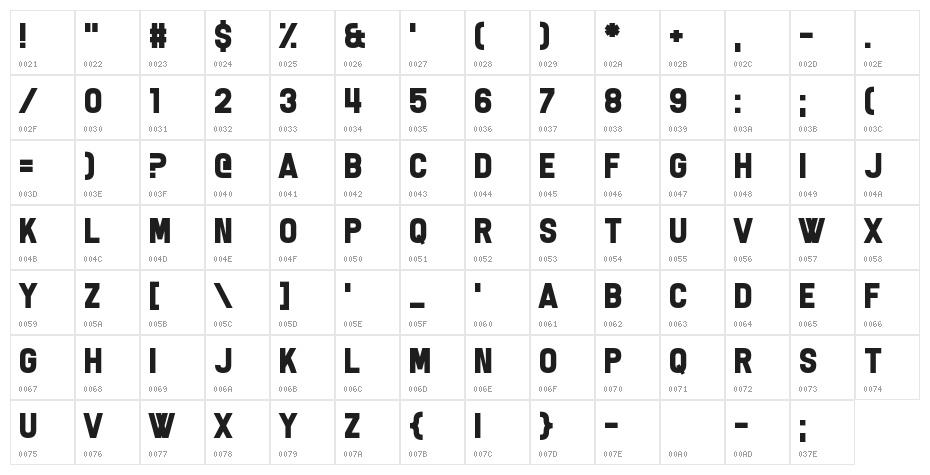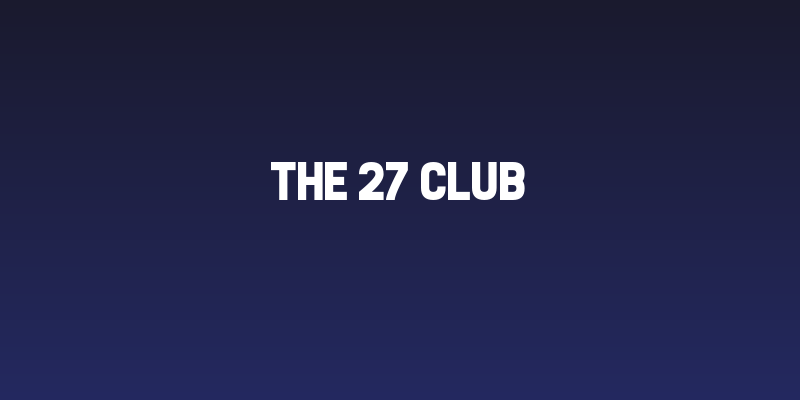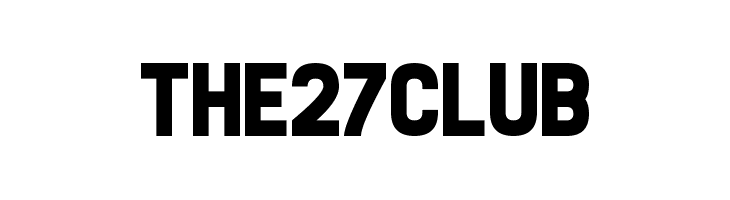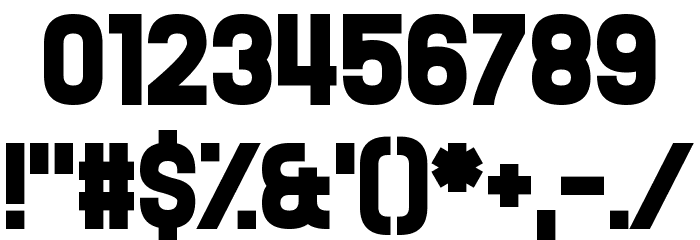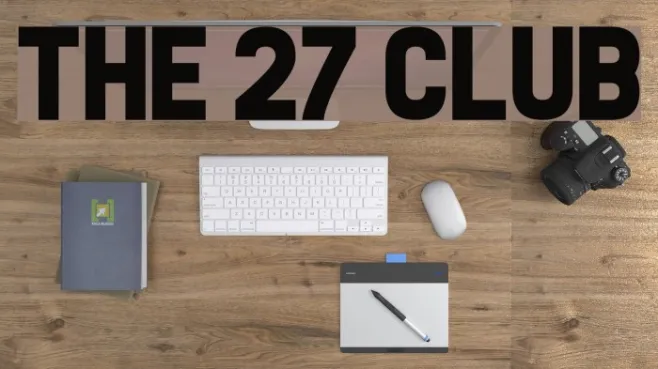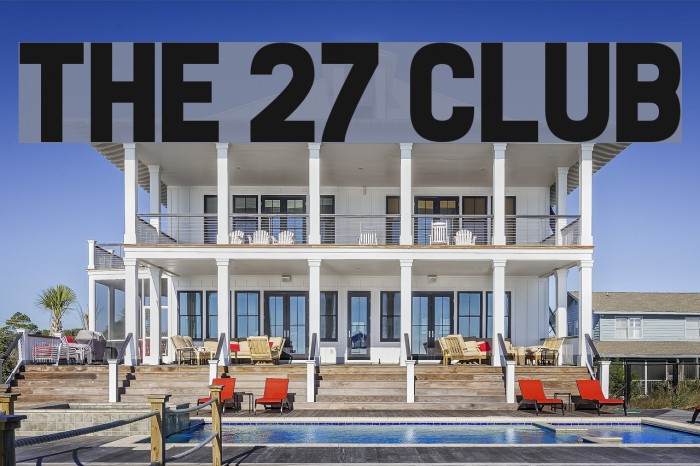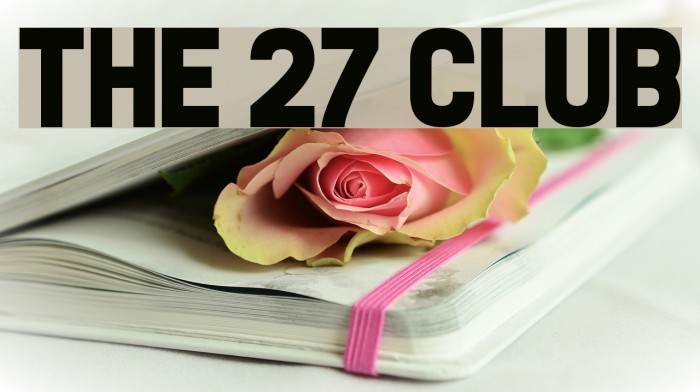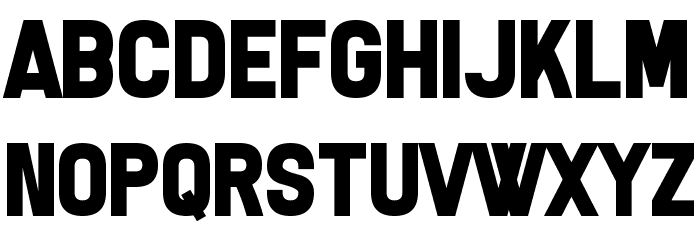
The 27 Club Font
The 27 Club Description
This font features bold, uppercase letters with a strong, impactful presence. The characters are designed with a uniform stroke width, giving them a robust and solid appearance. The font is highly legible, making it suitable for attention-grabbing headlines and titles. The numbers and special characters maintain the same bold style, ensuring consistency across all text elements. The overall design is modern and clean, with a slight industrial feel, making it versatile for various design applications.
| Proposed Projects | Ideal for posters, headlines, branding, and signage where a strong visual impact is needed. |